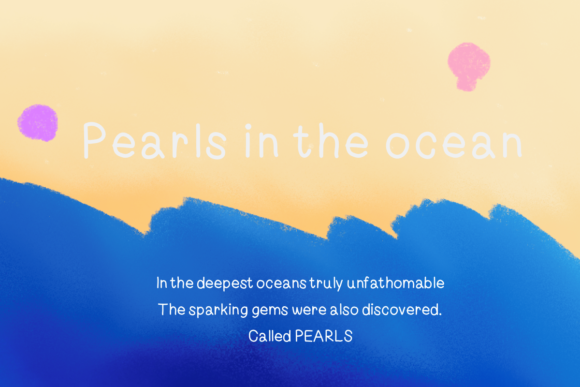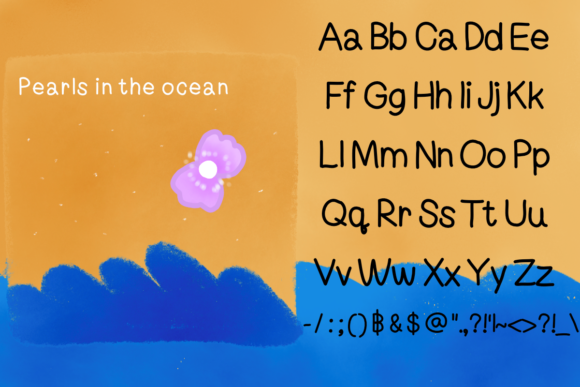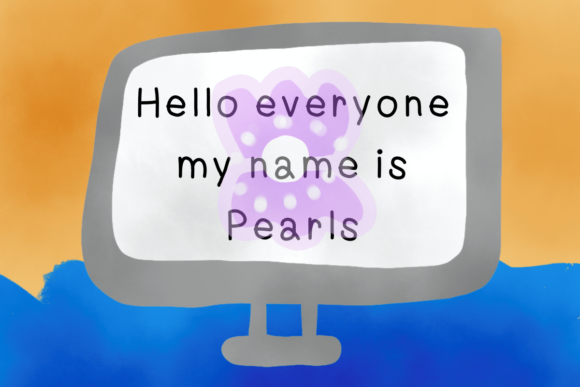
Pearls in the Ocean Font
About Pearls in the Ocean Font
Pearls in the Ocean is a sweet, simple and delicate script font. It looks marvelous on a variety of designs, such as invitations, cards, titles or covers.